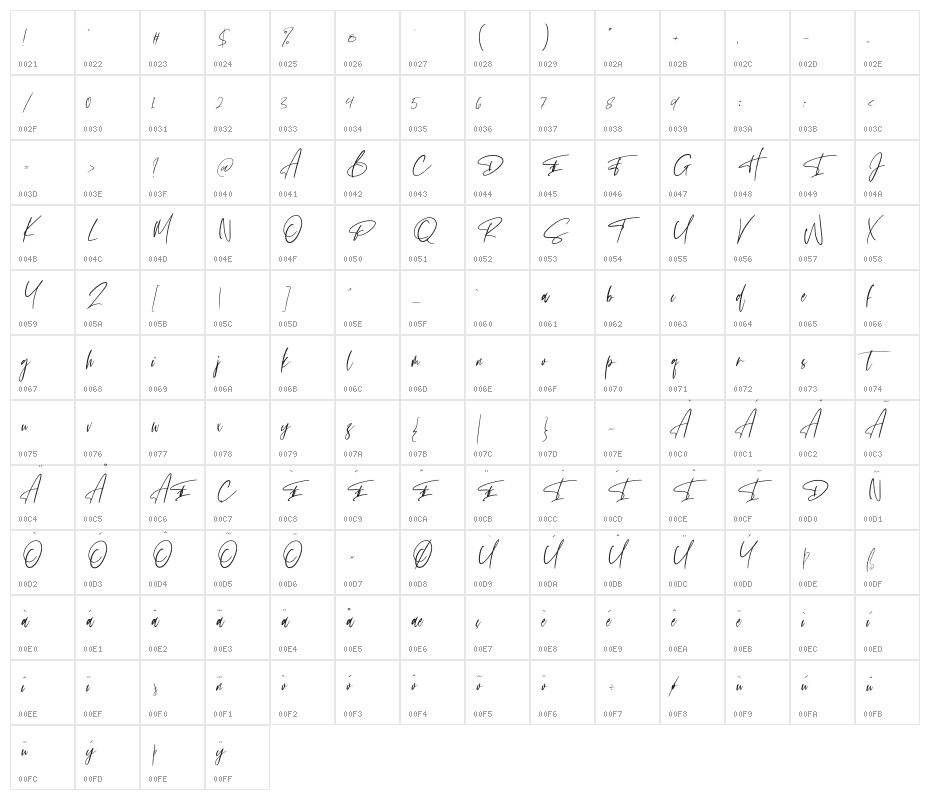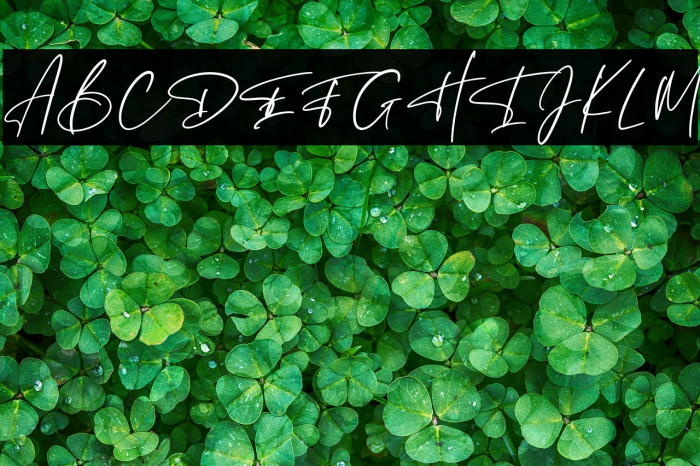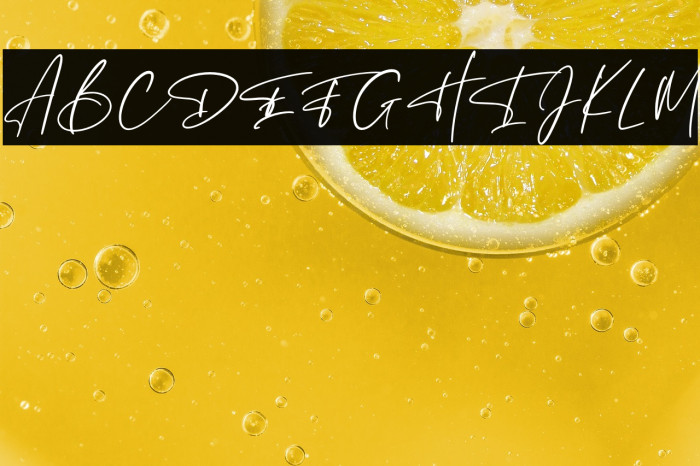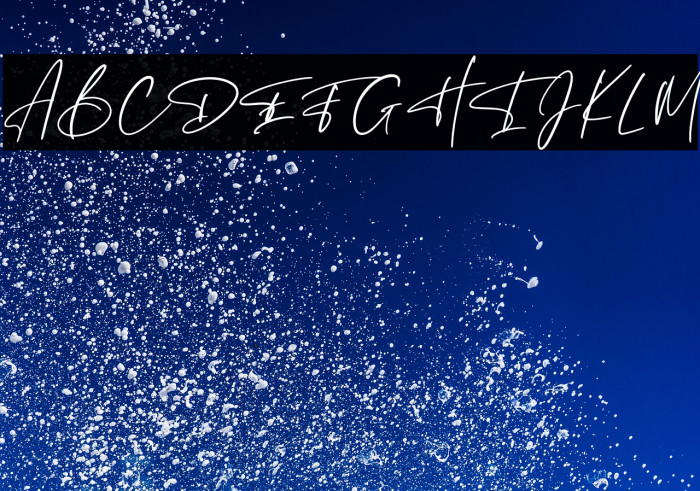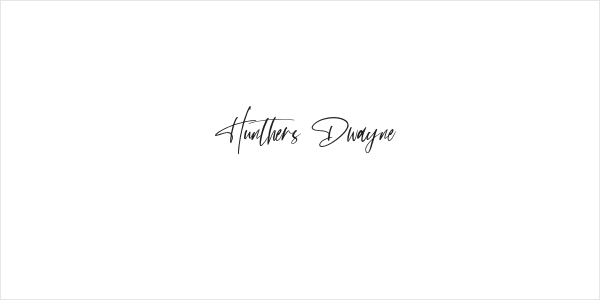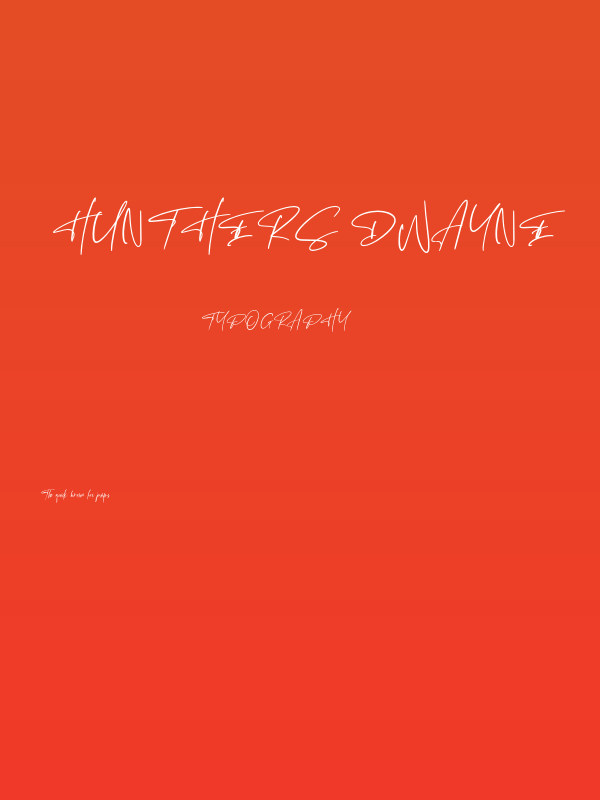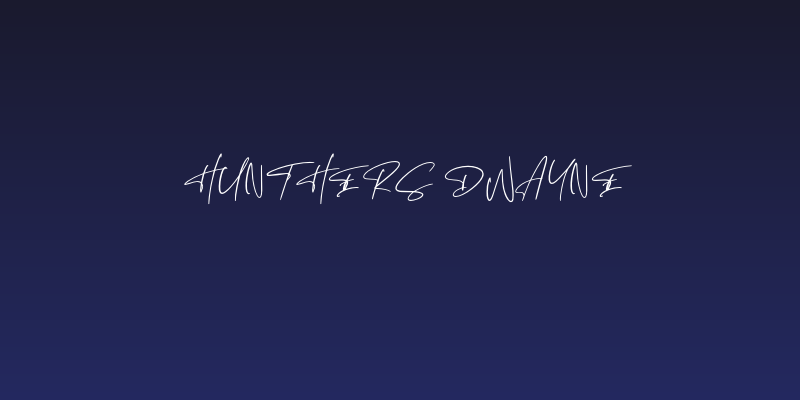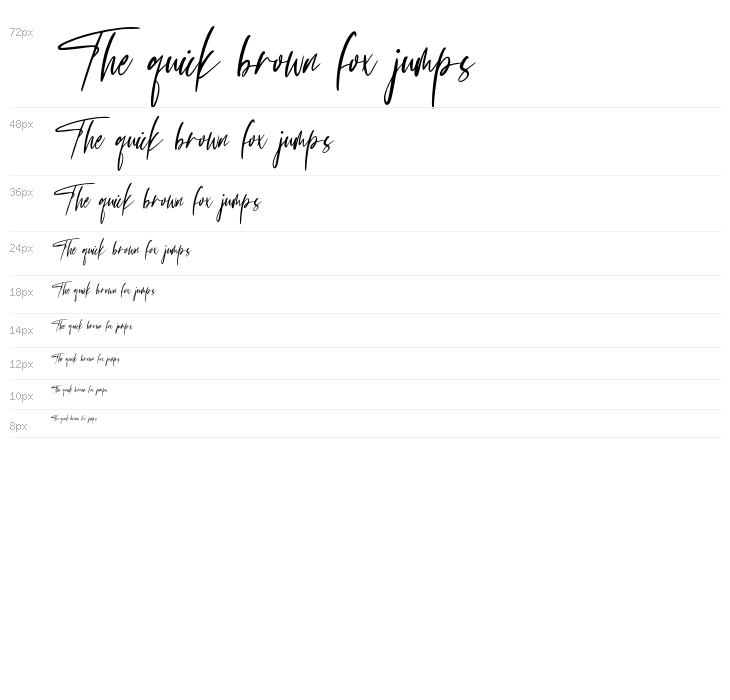
Hunthers Dwayne Font
Hunthers Dwayne Description
This font features an elegant, flowing script style that exudes a sense of sophistication and creativity. The uppercase letters are characterized by their sweeping curves and elongated forms, giving them a graceful and airy appearance. The lowercase letters maintain a consistent fluidity, with some characters featuring unique loops and flourishes that add to the overall charm. The numerals are designed with a similar flair, ensuring they blend seamlessly with the alphabet. Special characters are thoughtfully crafted, maintaining the font's cohesive aesthetic. This font is ideal for projects that require a touch of elegance and personal expression.
Overall StyleElegant
Use CaseLogos, Invitations, Branding
Proposed ProjectsIdeal for wedding invitations, branding, greeting cards, and elegant logo designs.